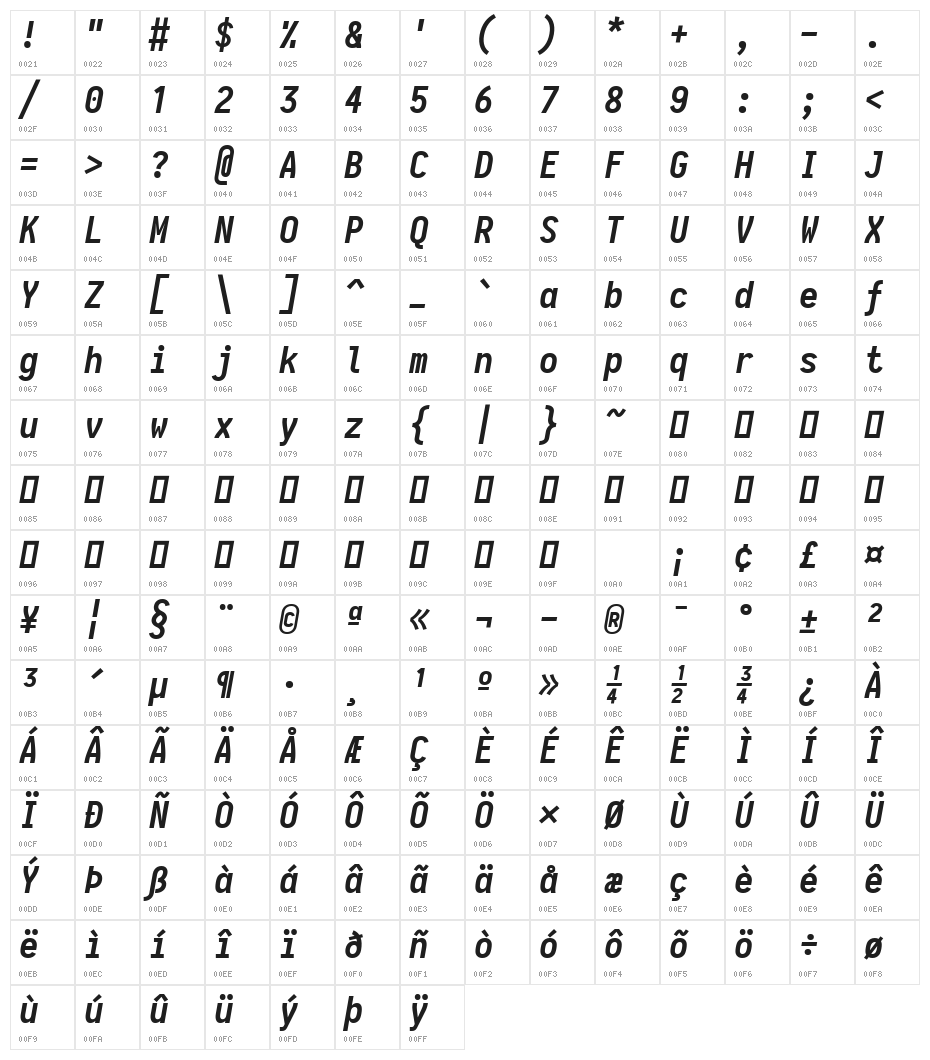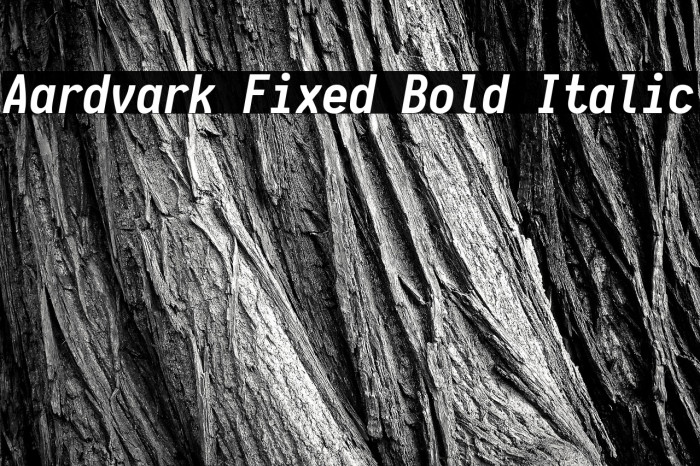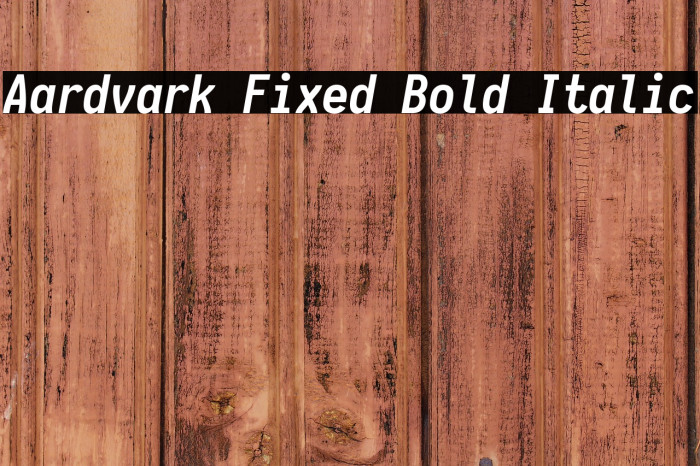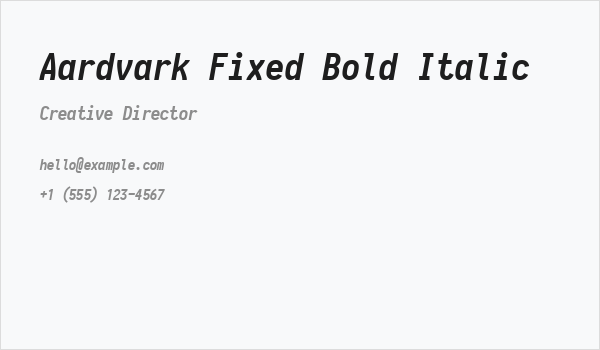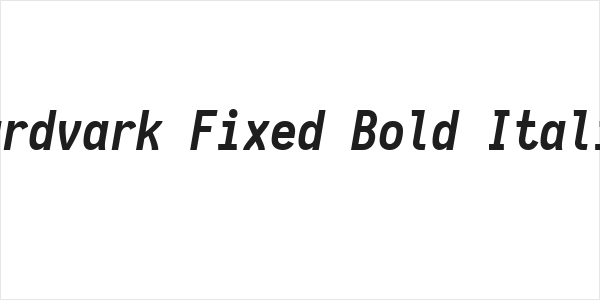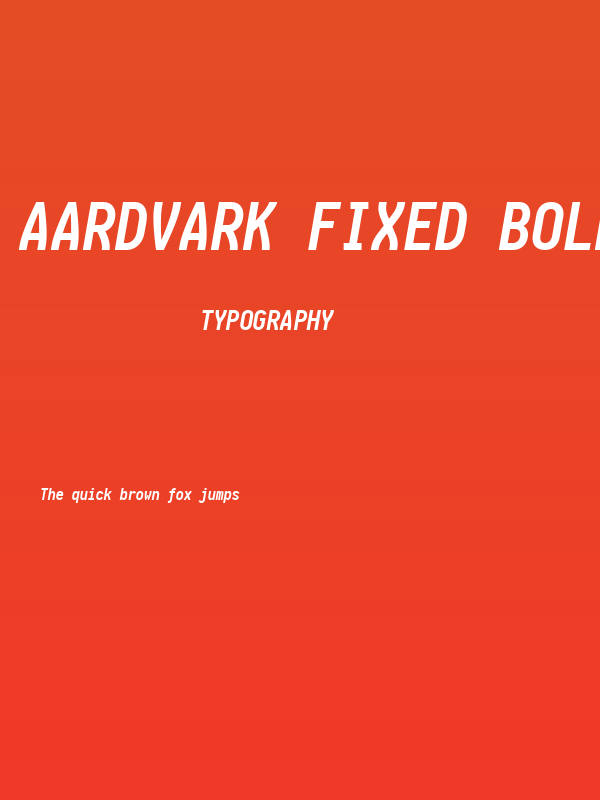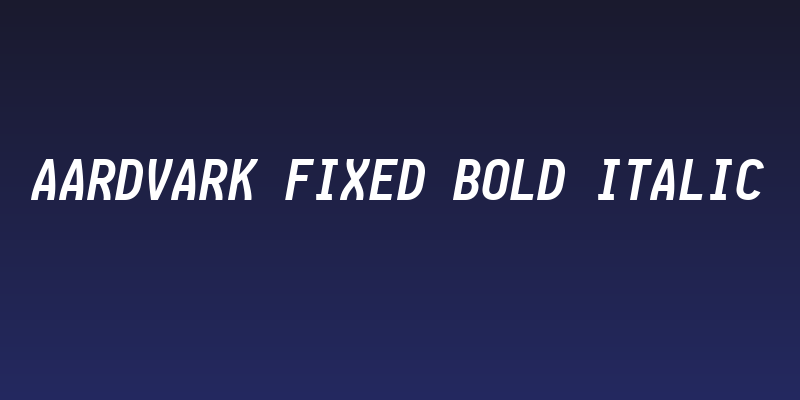
Aardvark Fixed Bold Italic Font
Aardvark Fixed Bold Italic Description
This font features a bold and italicized style with a strong presence. The characters are slightly slanted, giving a dynamic and forward-moving appearance. The strokes are thick and consistent, providing a robust and impactful look. The uppercase and lowercase letters maintain a uniform style, while the numerals and special characters are clearly defined and easy to read. The overall design is modern and versatile, suitable for various applications where a bold statement is needed.
| Proposed Projects | Ideal for headlines, posters, branding materials, and any design project requiring a strong visual impact. |